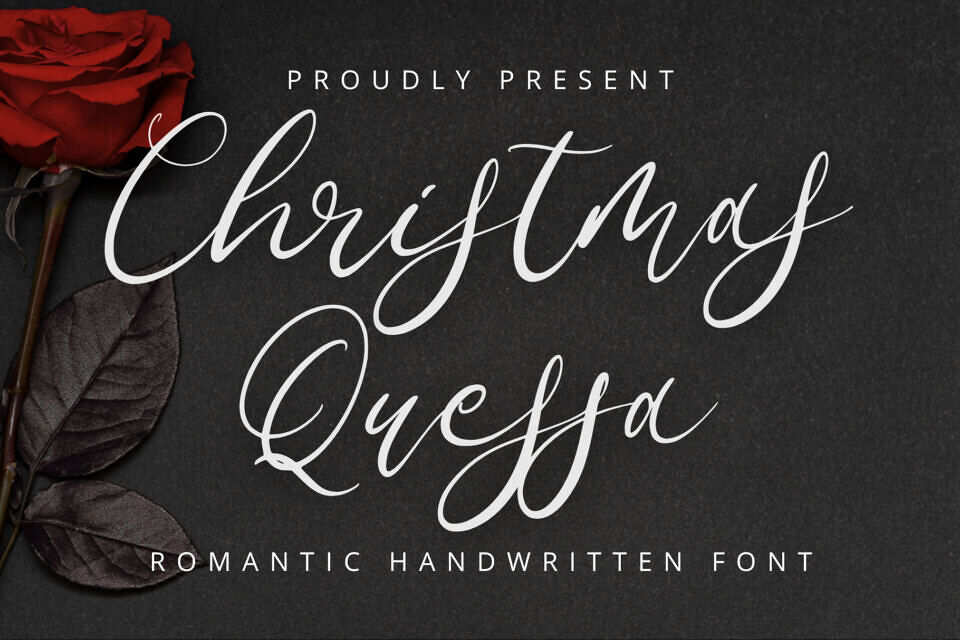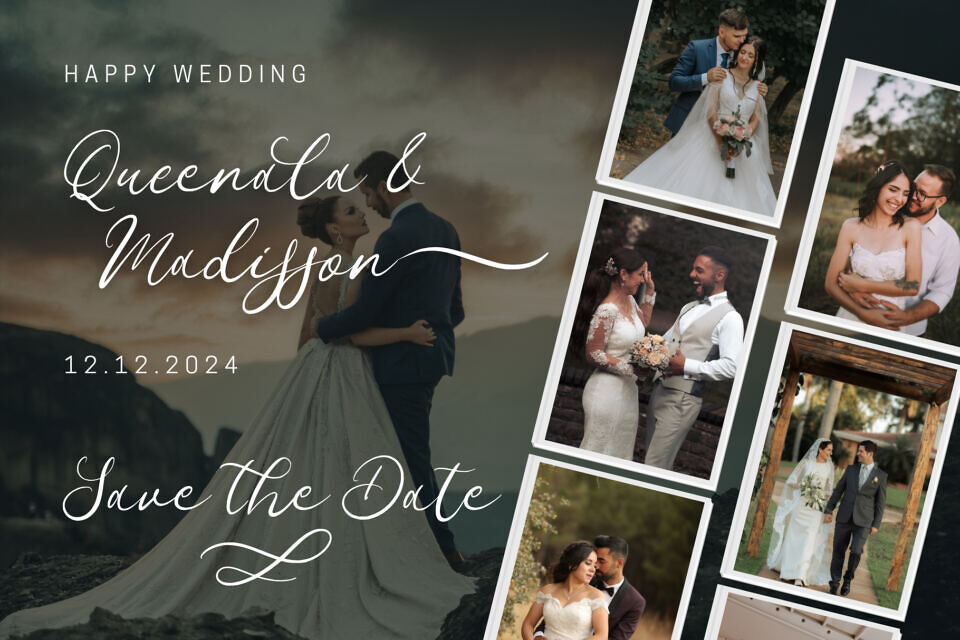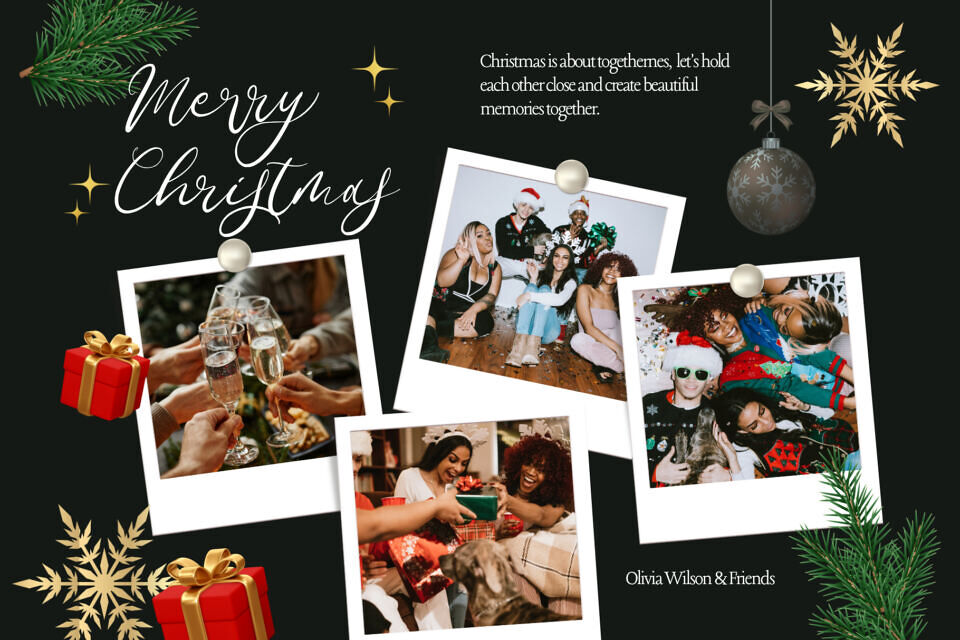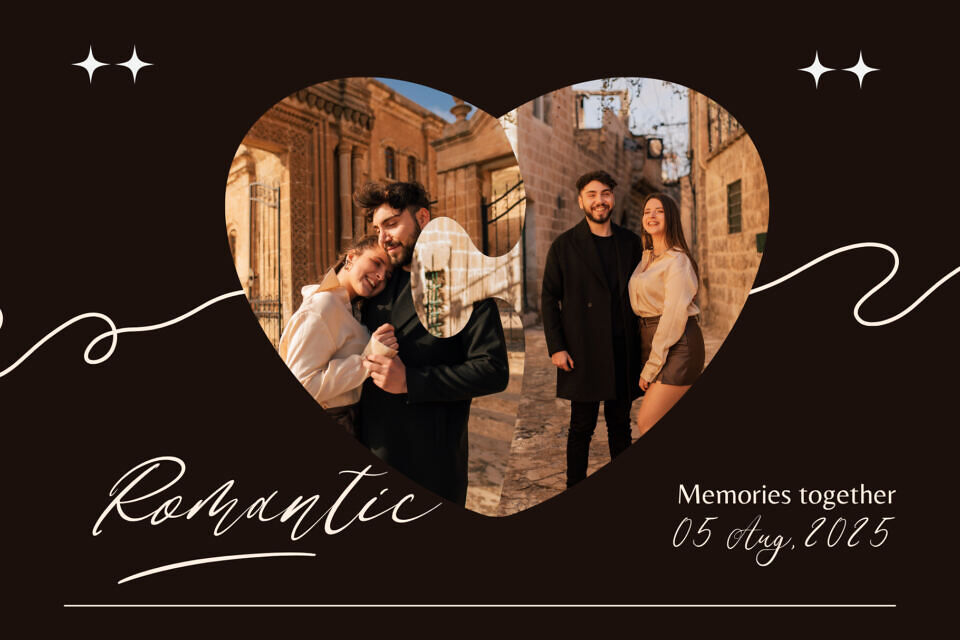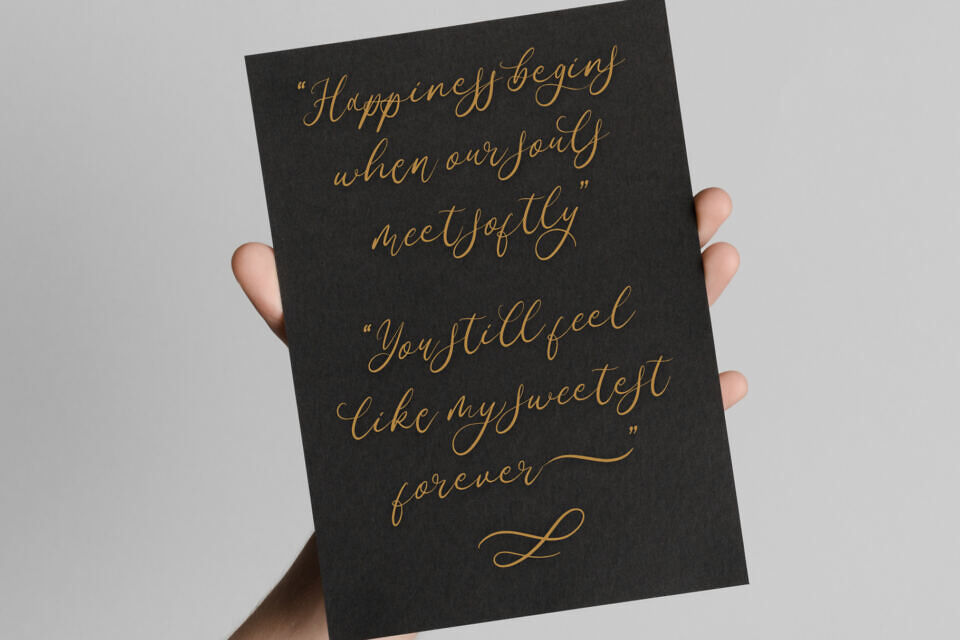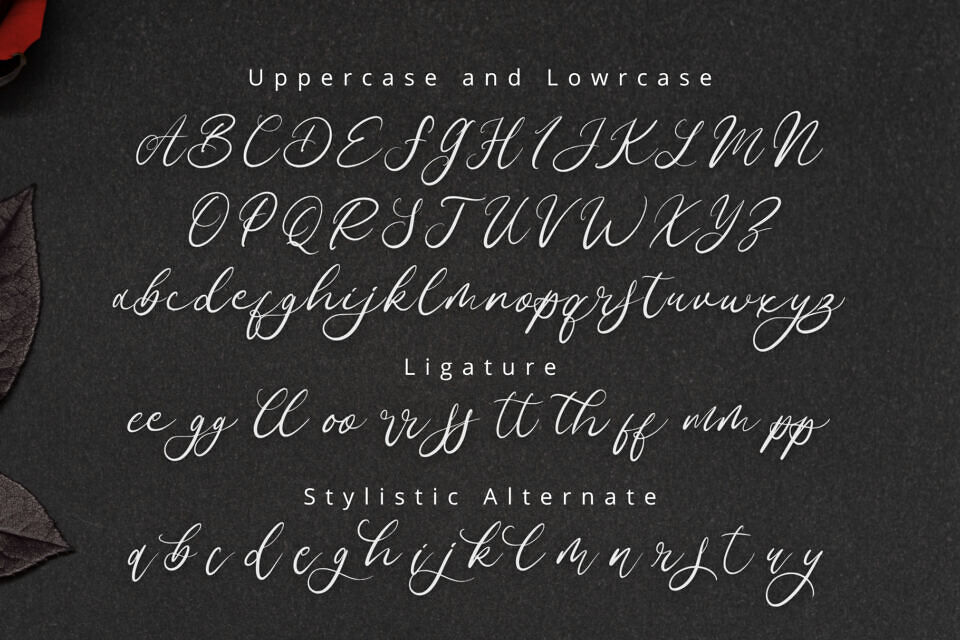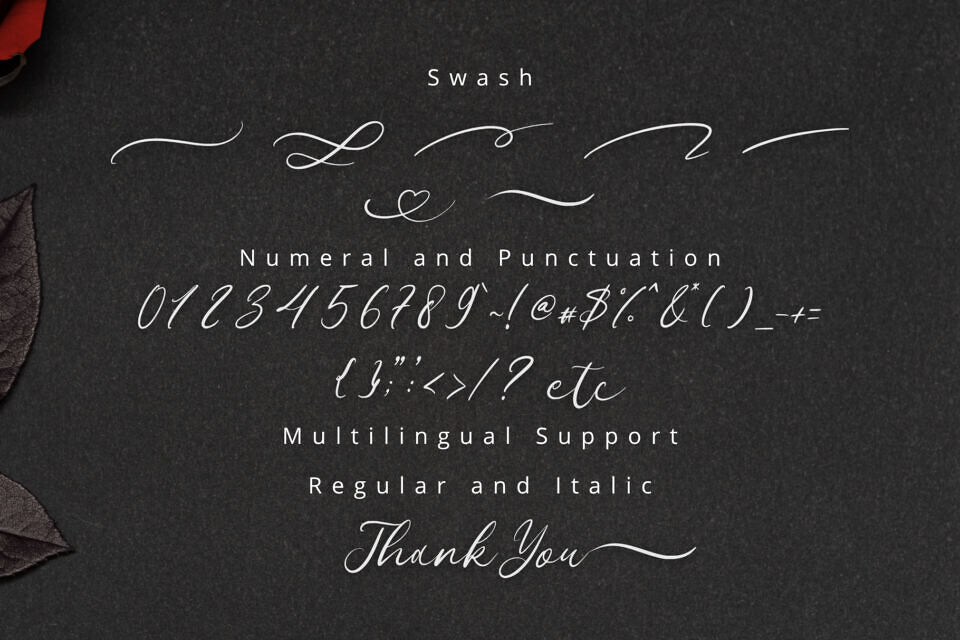
Christmas Quessa is a beautiful and romantic script font designed to bring elegance and warmth to your holiday projects. With smooth curves, delicate swashes, and a rich collection of ligatures and alternates, this font adds a charming handmade feel to any design.
Whether you’re working on Christmas cards, wedding invitations, social media quotes, branding, packaging, or festive crafts, Christmas Quessa will give your design a graceful and personal touch.